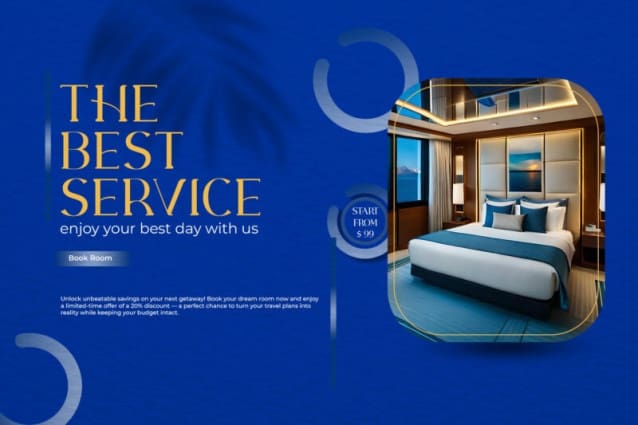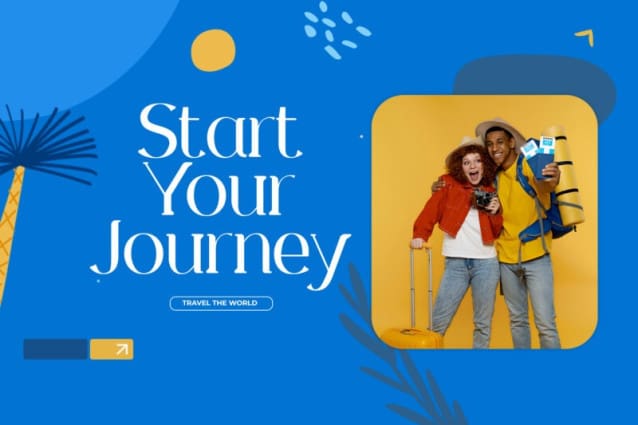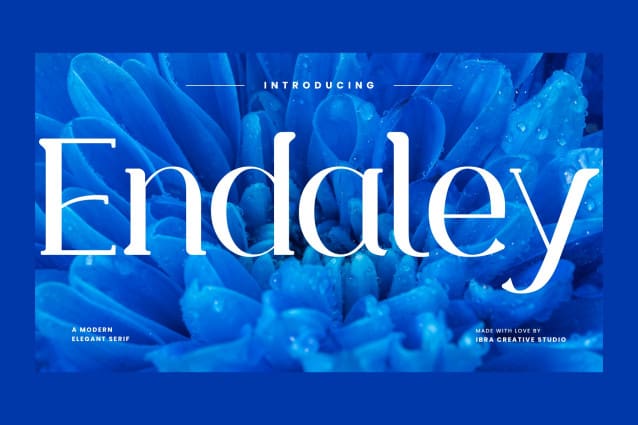
Endaley Font
Endaley Font is a modern and elegant serif typeface that seamlessly blends timeless sophistication with contemporary design. Its sleek and refined letterforms exude a sense of class and professionalism, making it a versatile choice for a wide range of applications, from editorial layouts to branding and beyond. The well-balanced serifs and subtle curves of Endaley create a harmonious visual rhythm, striking a delicate equilibrium between tradition and modernity. With its distinctive yet understated personality, Endaley Font adds a touch of refinement to any project, embodying a contemporary aesthetic while paying homage to the enduring elegance of serif typography.